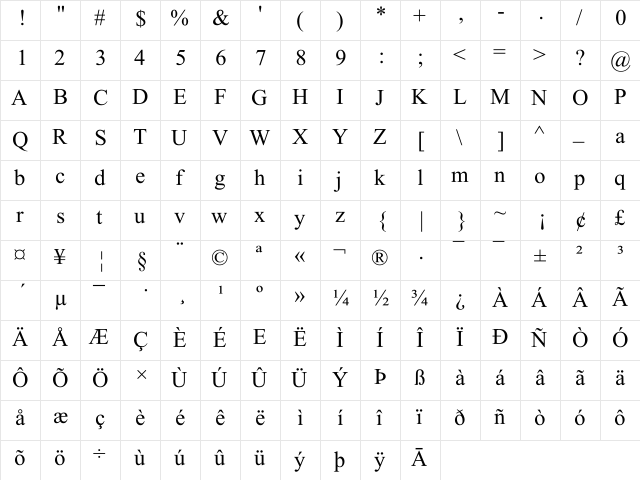
Ekushey Mohua Normal
Design Context for Ekushey Mohua Typeface
Ekushey Mohua is a composed and adaptable typeface that performs quietly and consistently across a wide range of design contexts.
Pro Tip: Use Ekushey Mohua in both headline and body roles to test its range before committing to a single application.